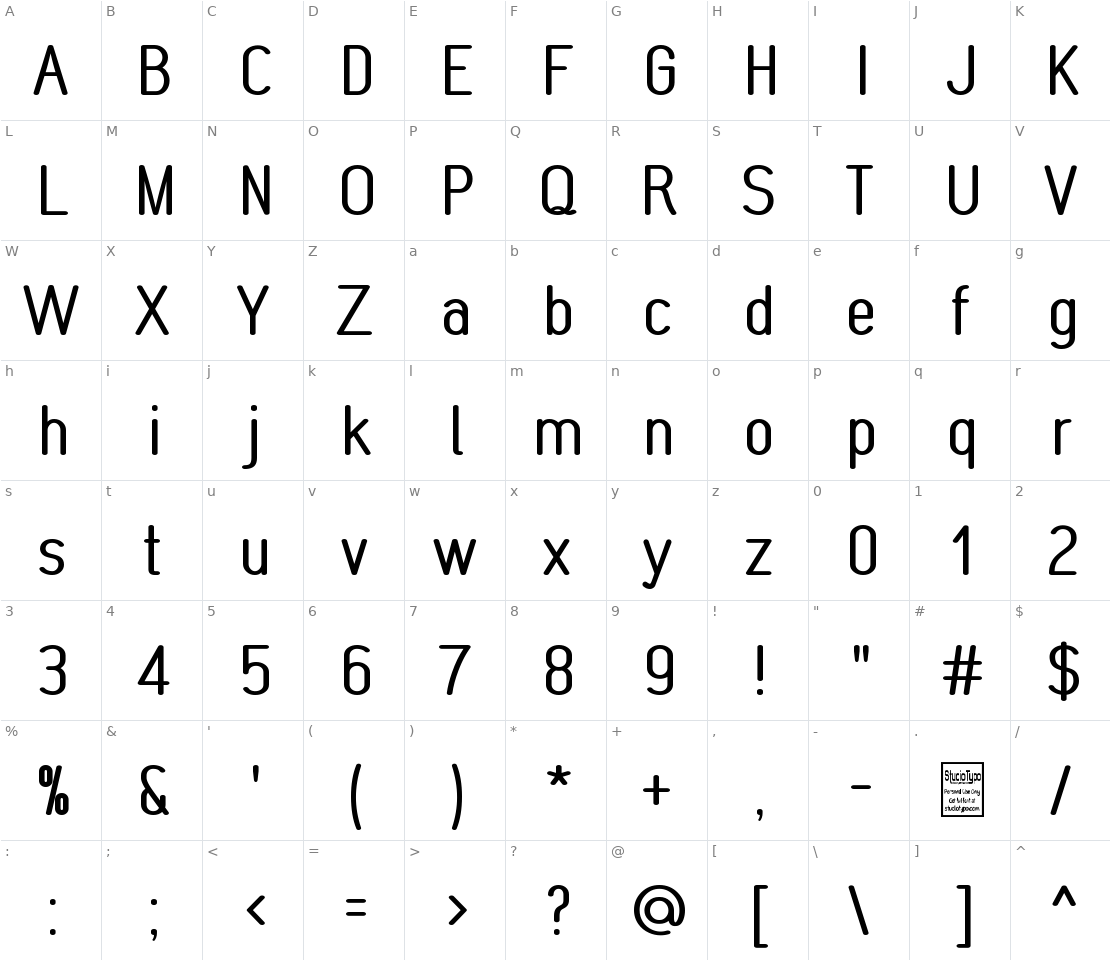
Mona Bella
by Studio Typo · Website
Mona Bella is a light, condensed geometric sans from Studio Typo with narrow proportions and a refined, airy presence. The letterforms are clean and minimal, carrying an understated elegance that works naturally in fashion editorials, luxury branding, and modern headline layouts where breathing room matters more than visual weight.